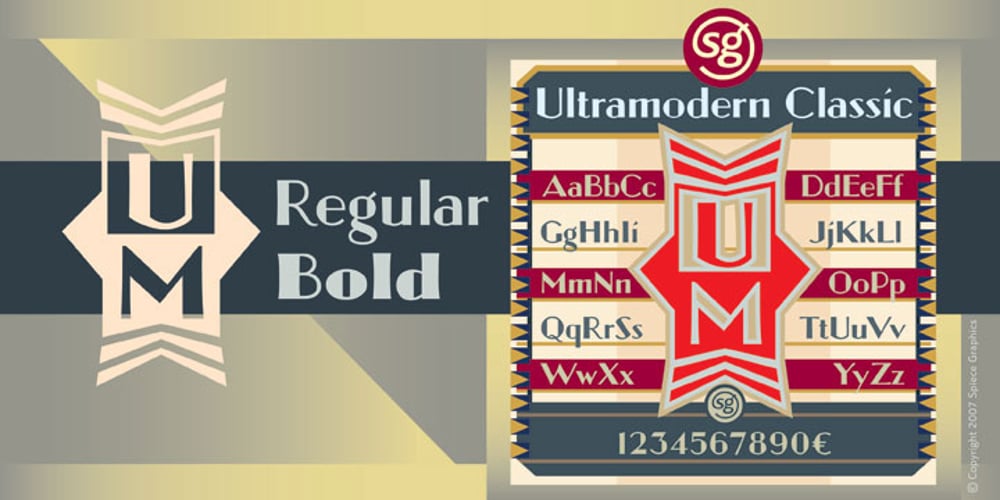
Ultramodern Classic SG
Ultramodern Classic SG font
Ultramodern Classic SG Font Family was designed by Douglas Crawford McMurtrie, Jim Spiece, Aaron Borad, Leslie Sprunger and published by Spiece Graphics. Ultramodern Classic SG contains 2 styles and family package options. If you’re getting tired of using Broadway, here’s an exciting alternative in regular and bold weights. Douglas C. McMurtrie, Aaron Borad, and Leslie Sprunger began designing this high-contrast novelty face for the Ludlow Foundry in 1928. It retains the classic style of the Jazz Age with a bit more individuality and spirit than Broadway. This extreme thick and thin design also sports normal descenders instead of the clipped ones found on Broadway. Ultramodern Classic is also available in the OpenType Std format. Some new characters have been added to this OpenType version. Advanced features currently work in Adobe Creative Suite InDesign, Creative Suite Illustrator, and Quark XPress 7. Check for OpenType advanced feature support in other applications as it gradually becomes available with upgrades.